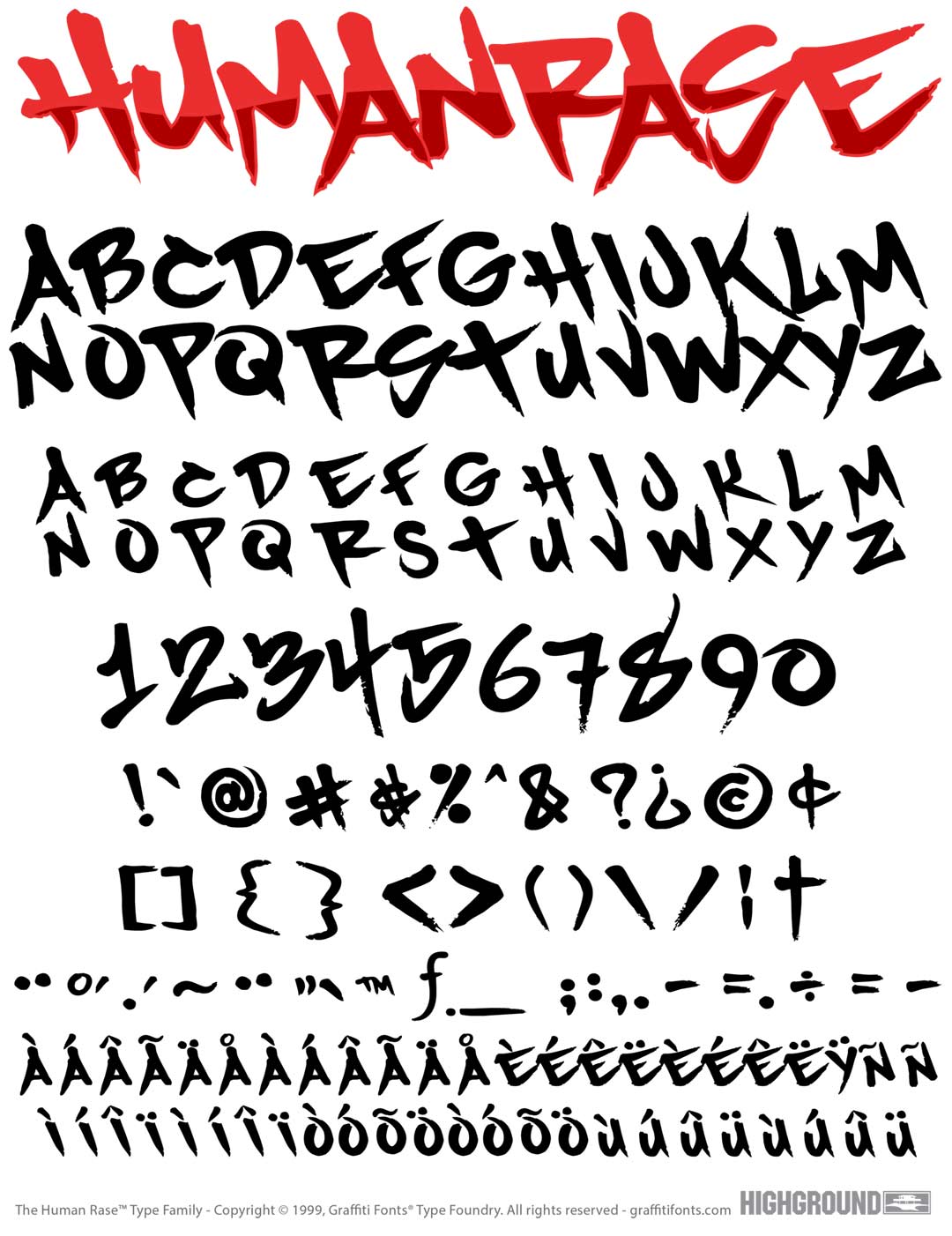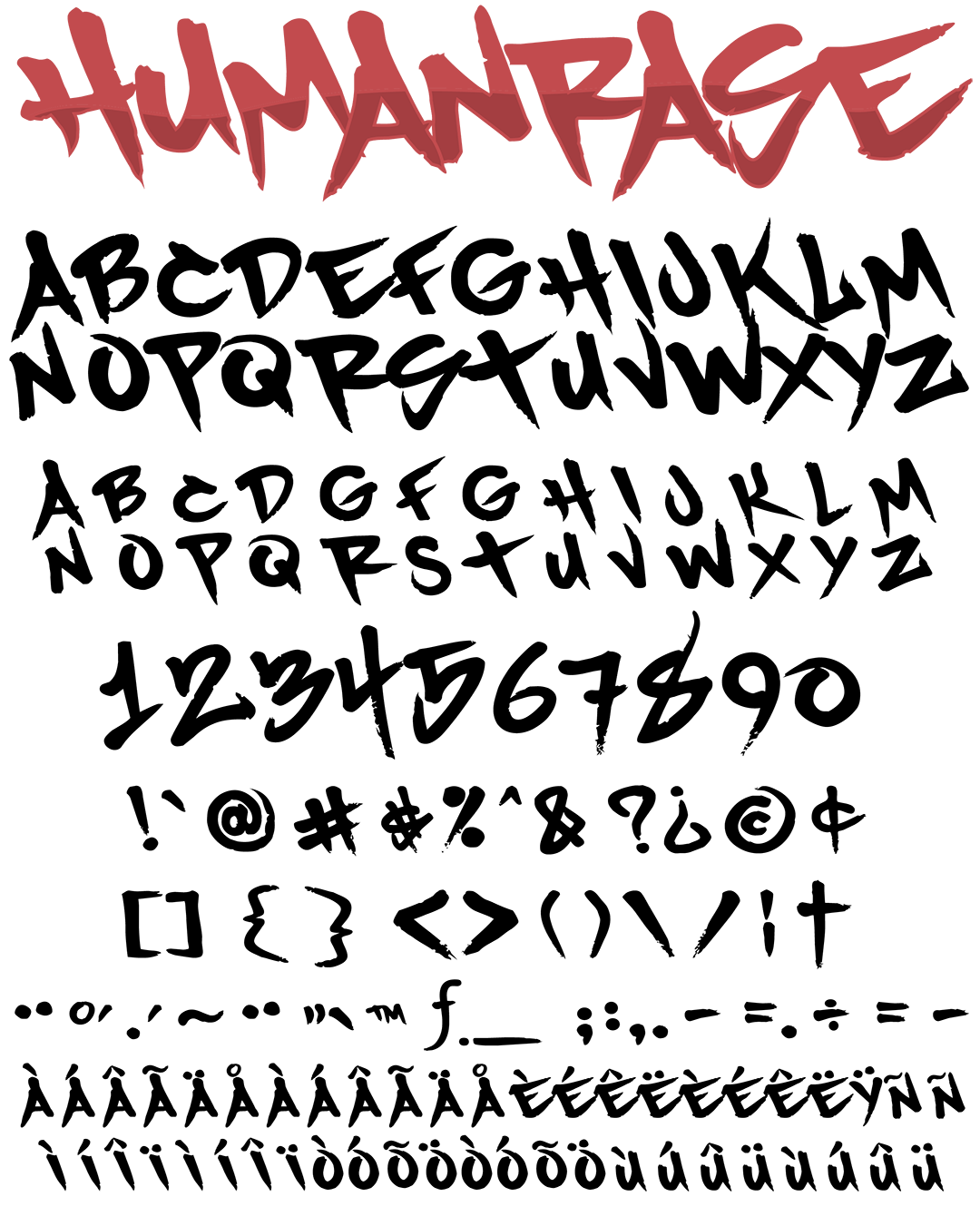
Human Rase Font
Human Rase Graffiti Alphabet
Human Rase Graffiti Font Family
One of the worlds first graffiti style fonts, Human Rase was first compiled from letters extracted from raps written with a sharpie marker. 179 tag style letters, numbers & other characters that provide a natural & imperfect, human feel with a definite graffiti slant. This legible handstyle was first created in 1999 & released with our first collection.